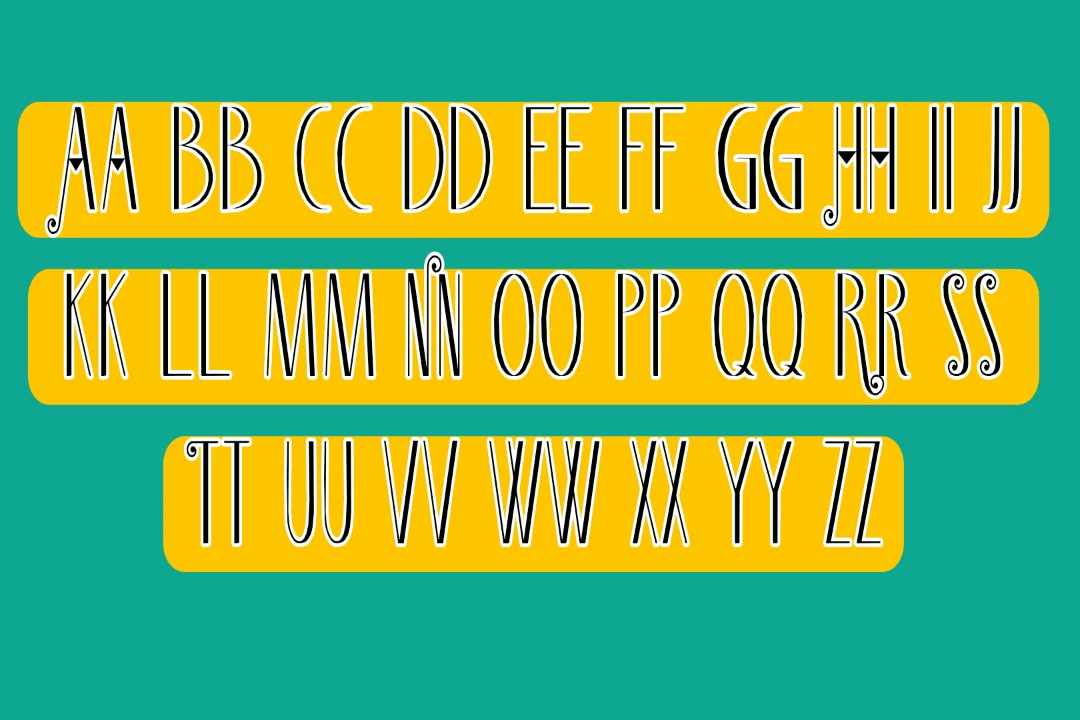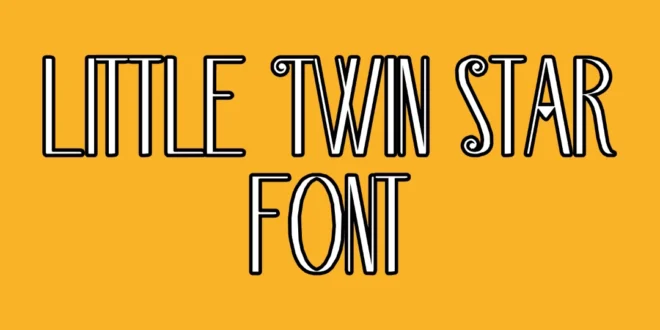
Little Twin Stars Font is free for all your unique types of designs. It is a delightful typeface inspired by the iconic Sanrio characters Kiki and Lala. This font represents the playful spirit of childhood imagination. With its soft curves and charming details, it is perfect for a variety of creative projects, including branding, invitations, and digital media.
When it comes to usage shines in children’s books, birthday invitations, and nursery decor, where it can add a whimsical touch. It is also a fantastic option for brands targeting young audiences, such as toy manufacturers and children’s clothing lines, helping to create a friendly and inviting identity.